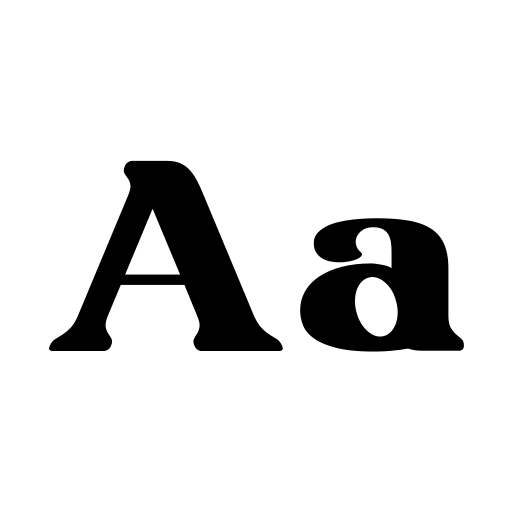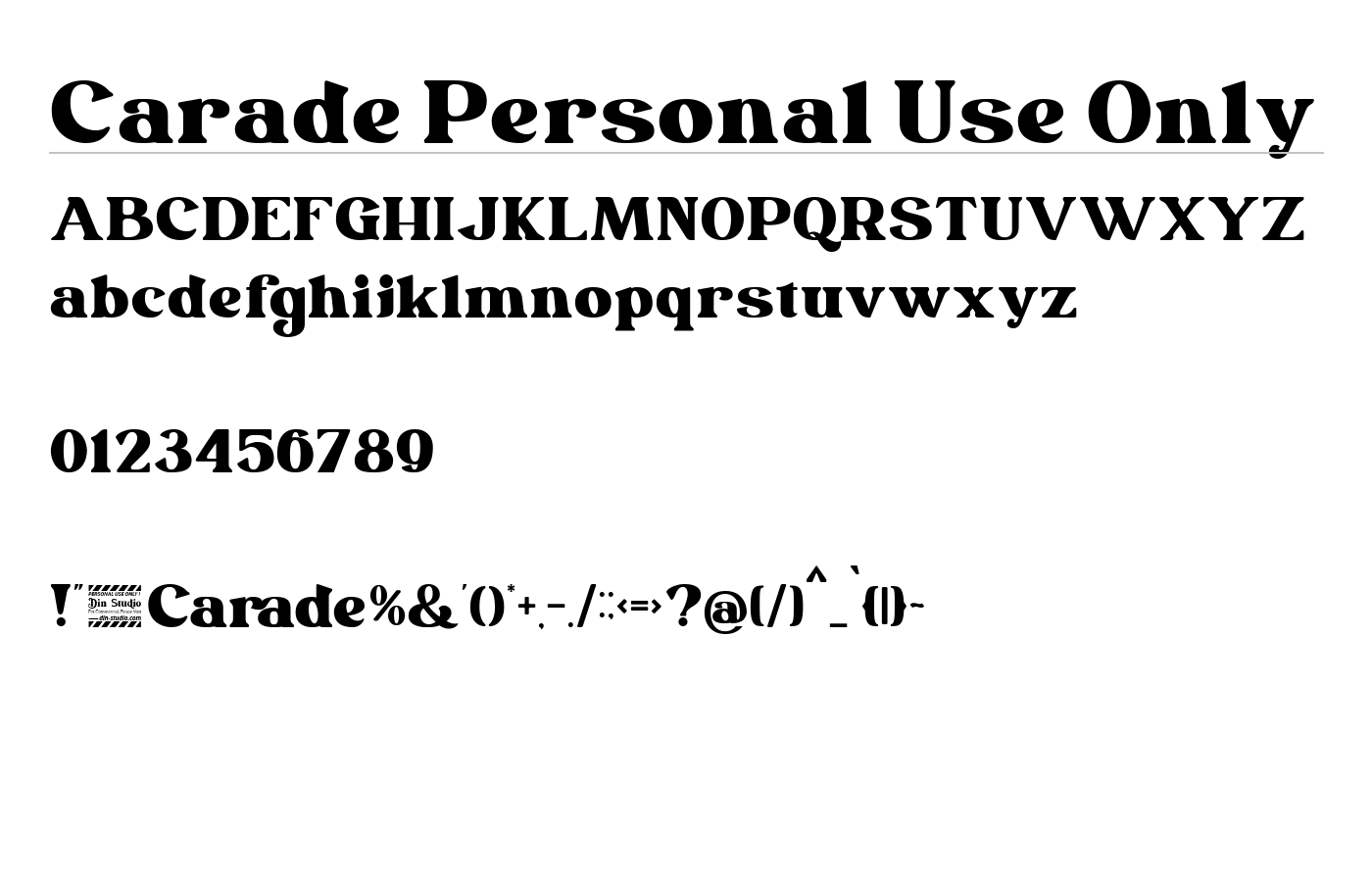
Carade Personal Use Only is a bold serif font with strong slab-like serifs and moderate contrast in stroke weight, giving it a sturdy yet friendly appearance. Its well-defined shapes, with distinctive features like the curled tail on the Q and the unique double-story g, make it ideal for impactful headlines, branding, and editorial use where readability and personality are key. This font brings a vintage yet robust charm, perfect for designs seeking a confident and classic look.
Carade Personal Use Only Font
About Carade Personal Use Only Font